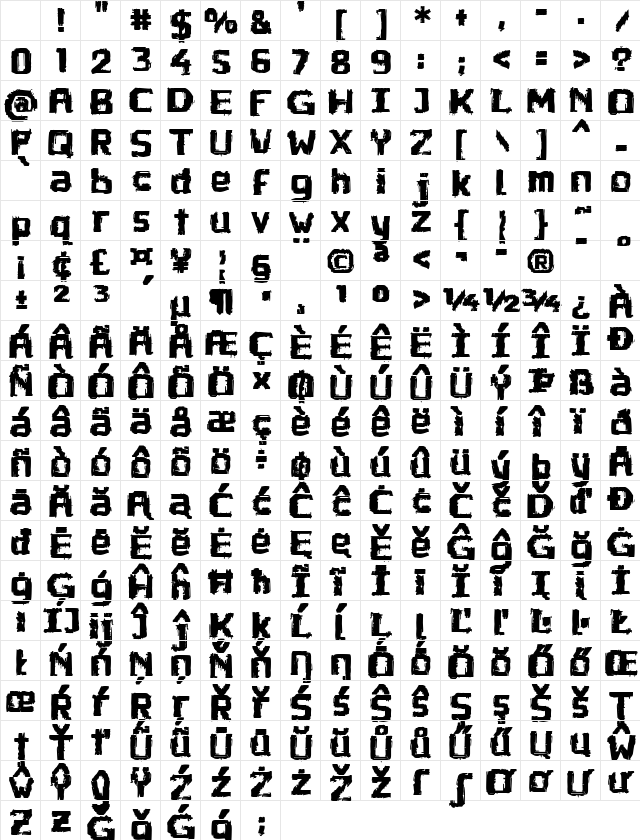
Complete zai Greenwashing Glitch Regular glyph index. Displaying only characters natively supported by zai Greenwashing Glitch Regular font.
zai Greenwashing Glitch is a composed and adaptable typeface that performs quietly and consistently across a wide range of design contexts.